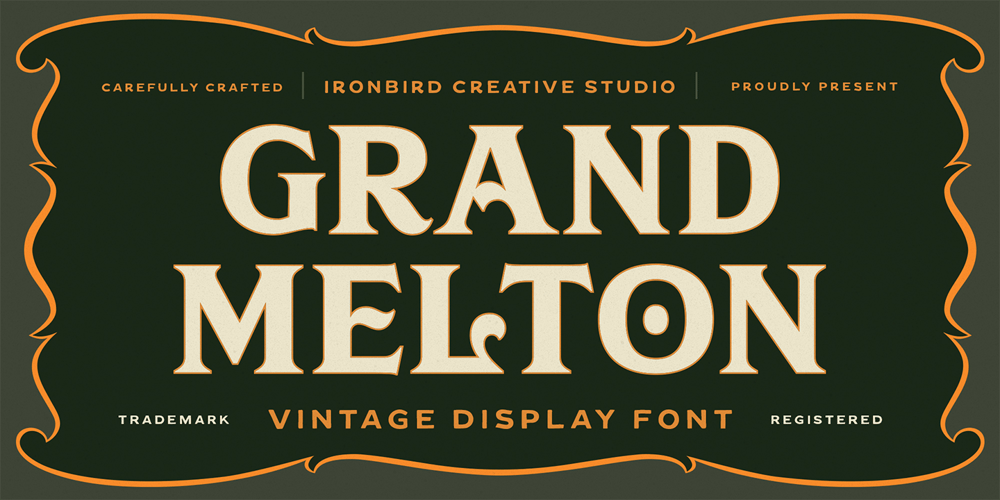
IC Grand Melton Font Family was designed by Septianto Nugroho and published by Ironbird Creative. IC Grand Melton contains 2 styles and family package options. IC Grand Melton is a powerful display typeface inspired by vintage type with carefully crafted. This typeface is perfect for people looking for vintage aesthetics. Suitable for any graphic designs such as branding materials, shirts, print, logos, poster, t-shirt, quotes .etcWe hope you enjoy the font, please feel free to comment if you have any thoughts or feedback. Thanks for purchasing and have fun!Regards,Ironbird Creative